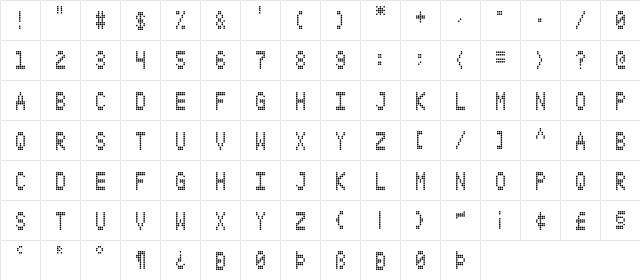
S4QUFX Regular
| Foundry | Michael Wallner |
| Designer | Michael Wallner |
Design Context for S4QUFX Typeface
S4QUFX is a composed and adaptable typeface that performs quietly and consistently across a wide range of design contexts.